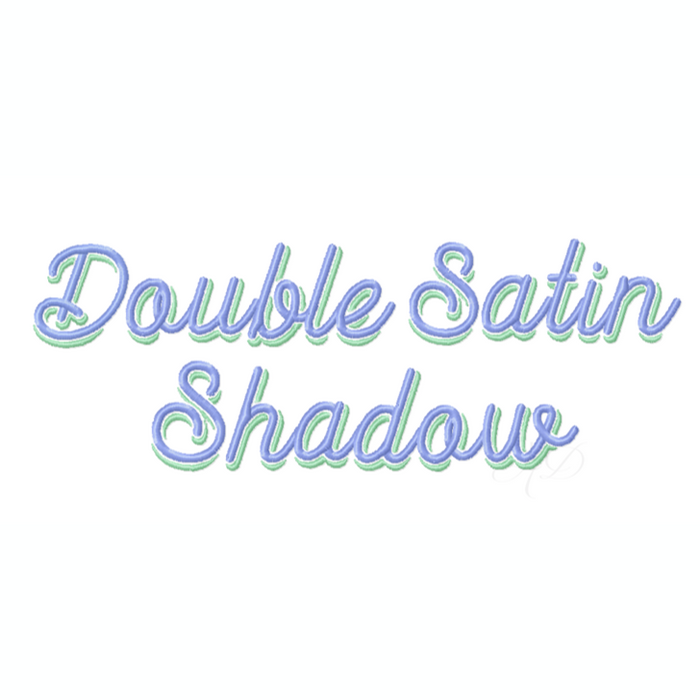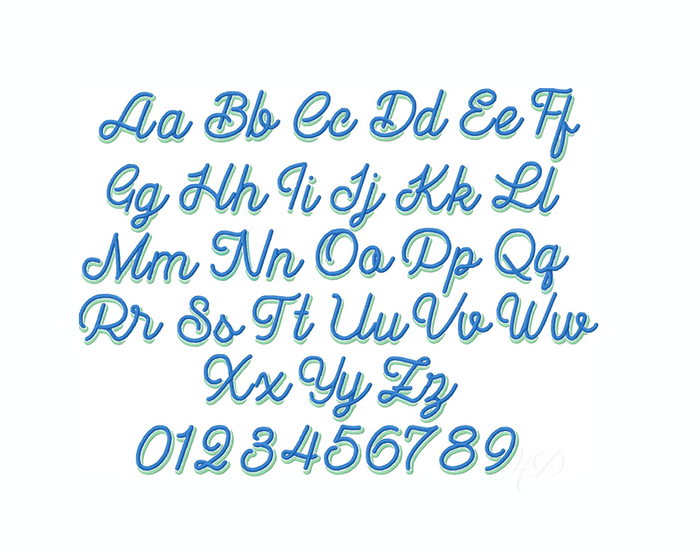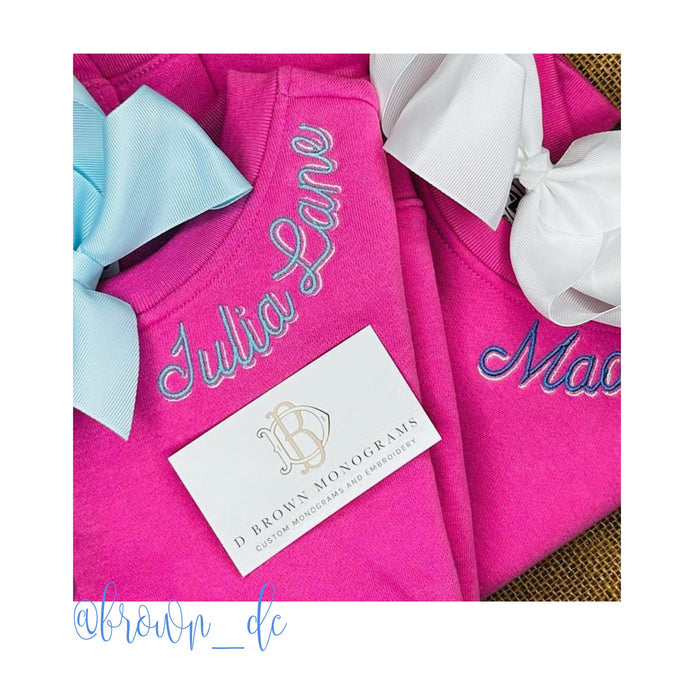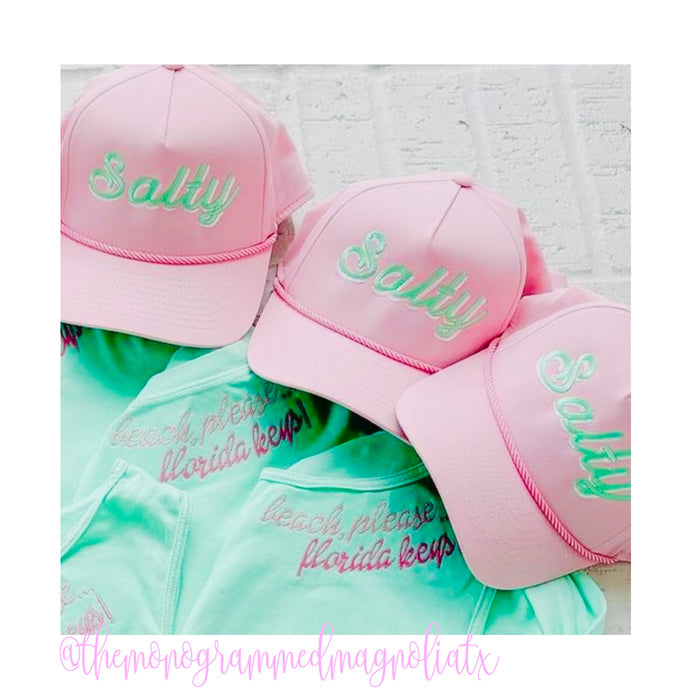
4x4 Double Satin Stitch Shadow Script Embroidery Font Package
Unlock your creativity with our 4x4 Double Satin Stitch Shadow Script Embroidery Font. This versatile two-color satin stitch font is ideal for machine embroidery projects, featuring both uppercase and lowercase letters from A-Z and numbers 0-9.